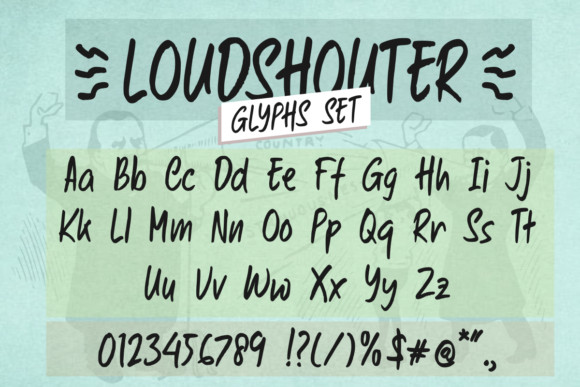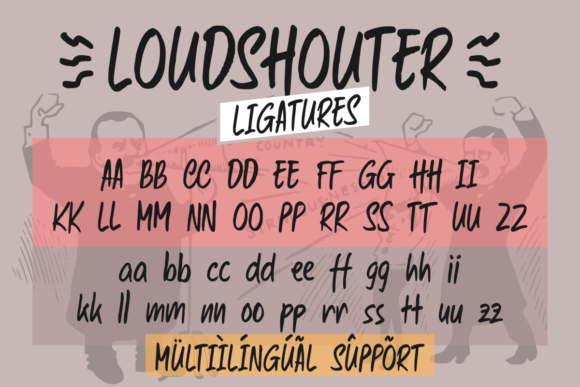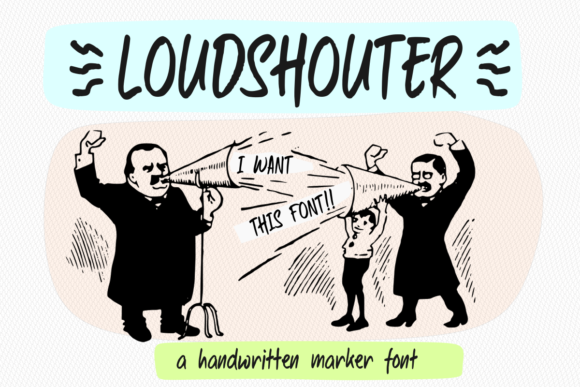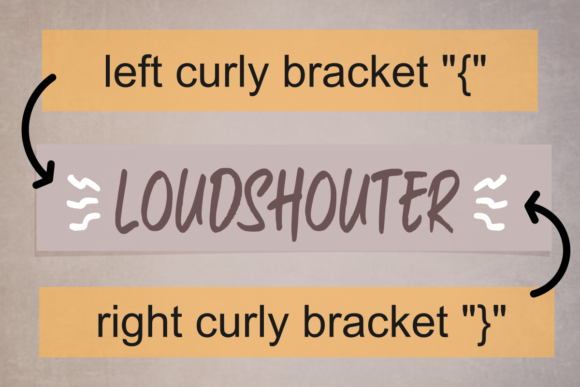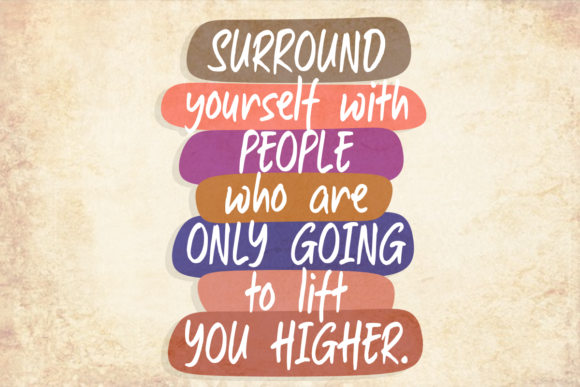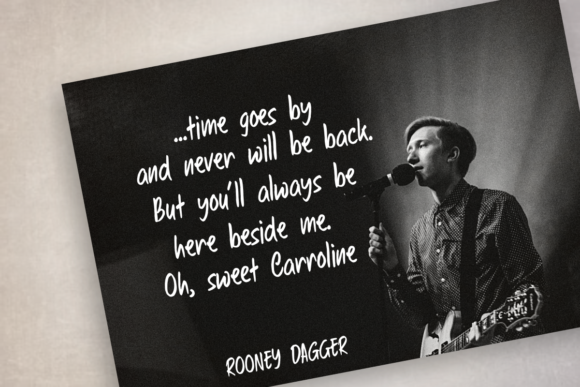
Loudshouter Font
About Loudshouter Font
Loudshouter is a handwritten font created with a pencil and a marker. It is great for cartoon designs, quotes, social media posts, book covers, merchandises and more!